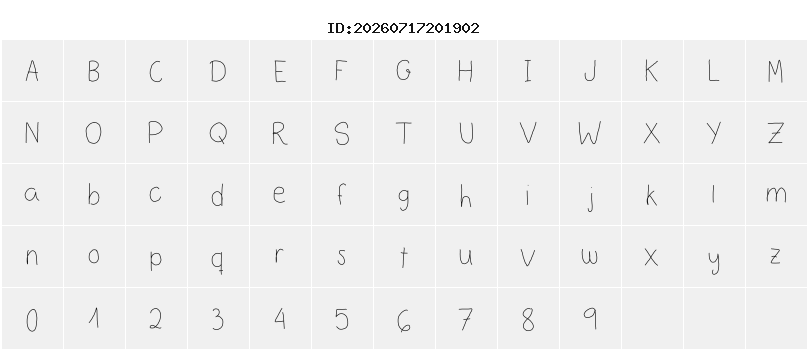
• Font Name: Before the sun rises
• Full Font Name: Before the sun rises
Before the sun rises.ttf is a modern, elegant sans-serif font designed for ultimate readability and visual harmony. Perfect for branding, headlines, web design, and print materials.